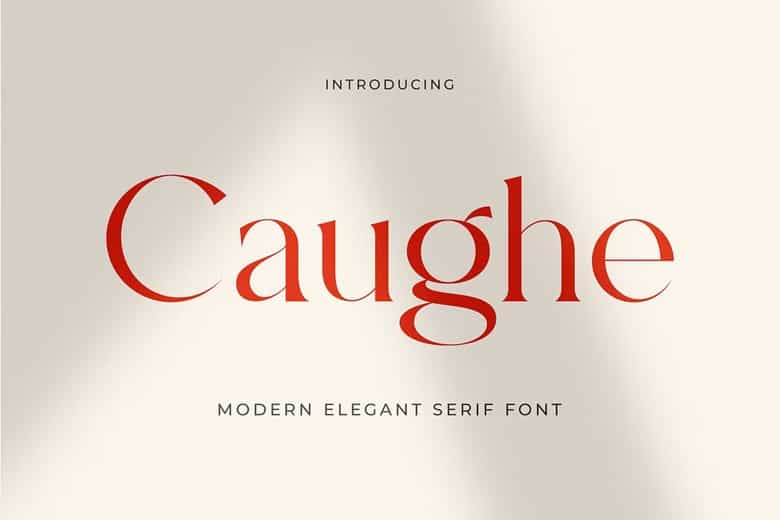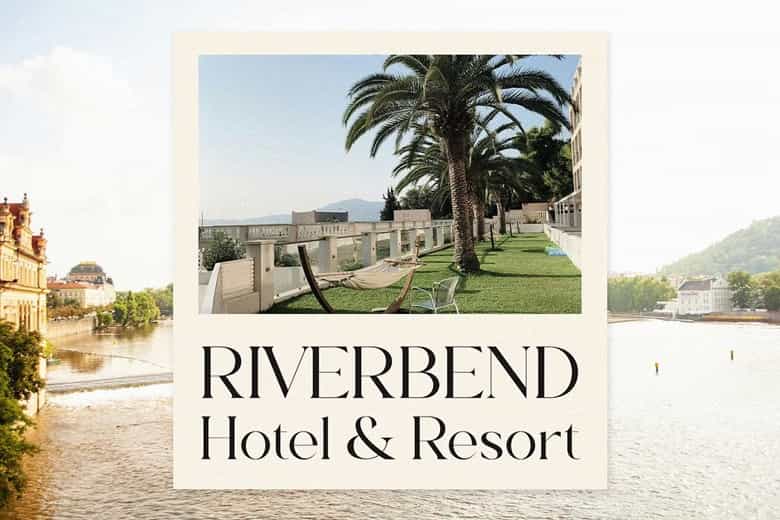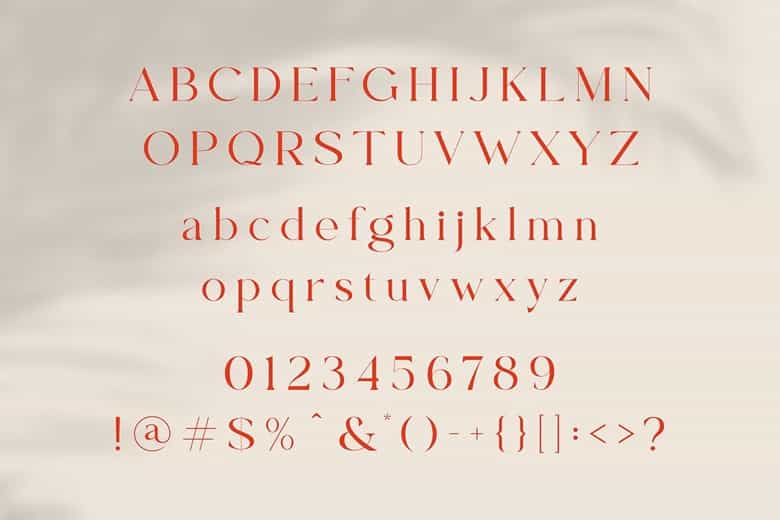
Caughe is a new modern elegant serif typeface design created for use on headings, logos, branding projects, magazines, product packaging and invitations. This font is PUA encoded which means for all of the glyphs and swashes there are no complexities of how to reach it.